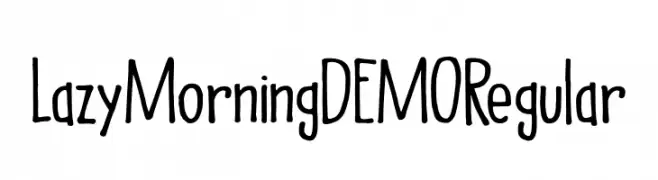
A playful, casual handwritten font with rounded, irregular letterforms.
A playful, hand-drawn font with a casual and friendly style.
A playful, handwritten font with smooth curves and a casual style.